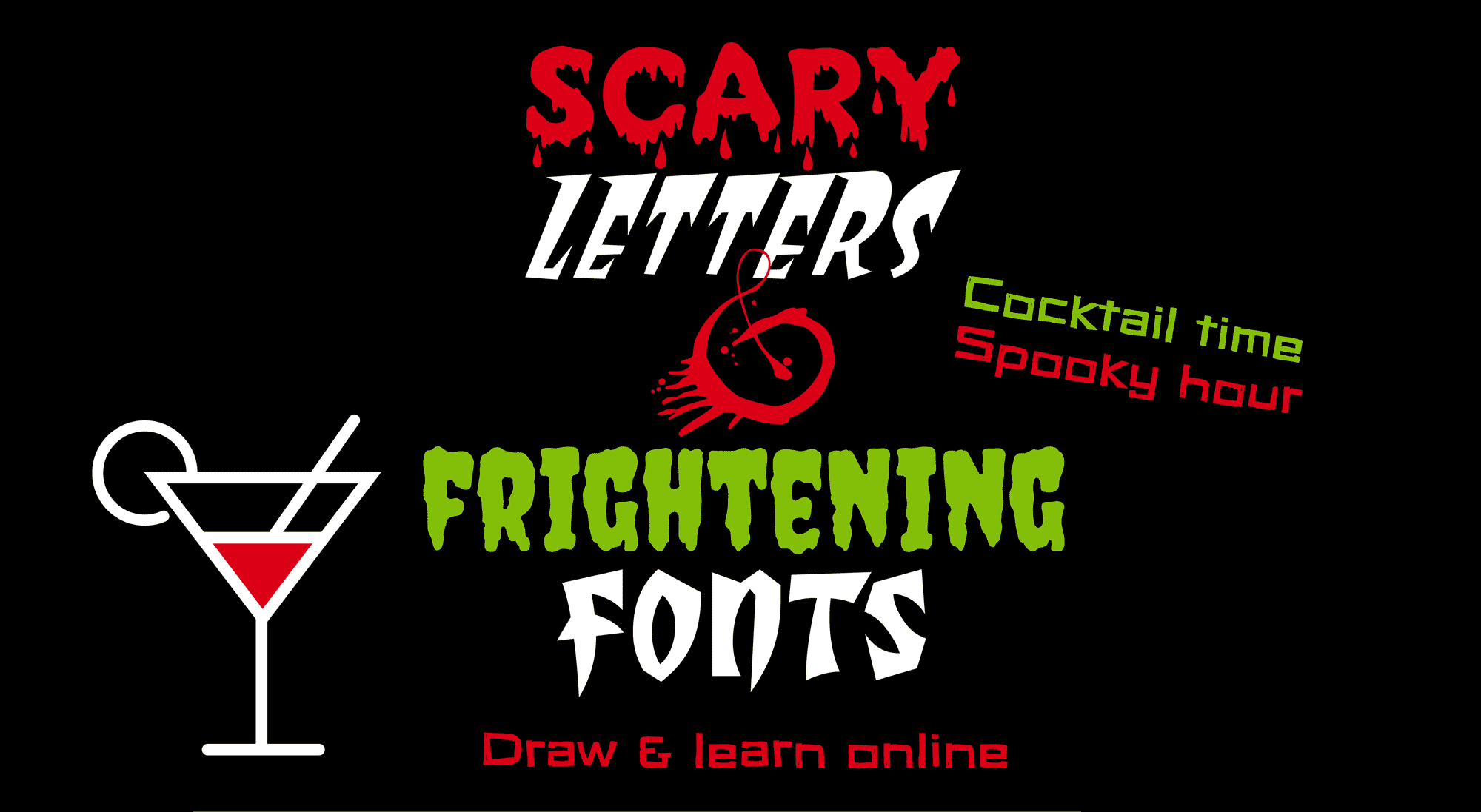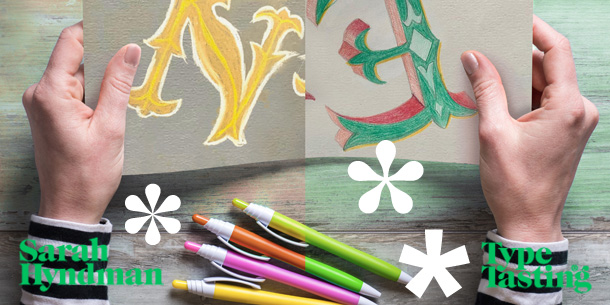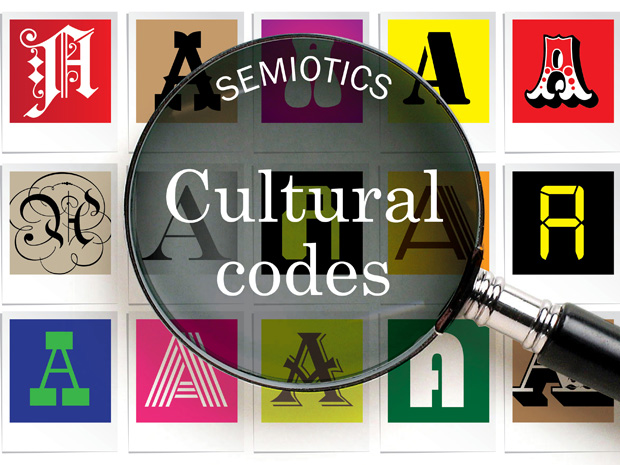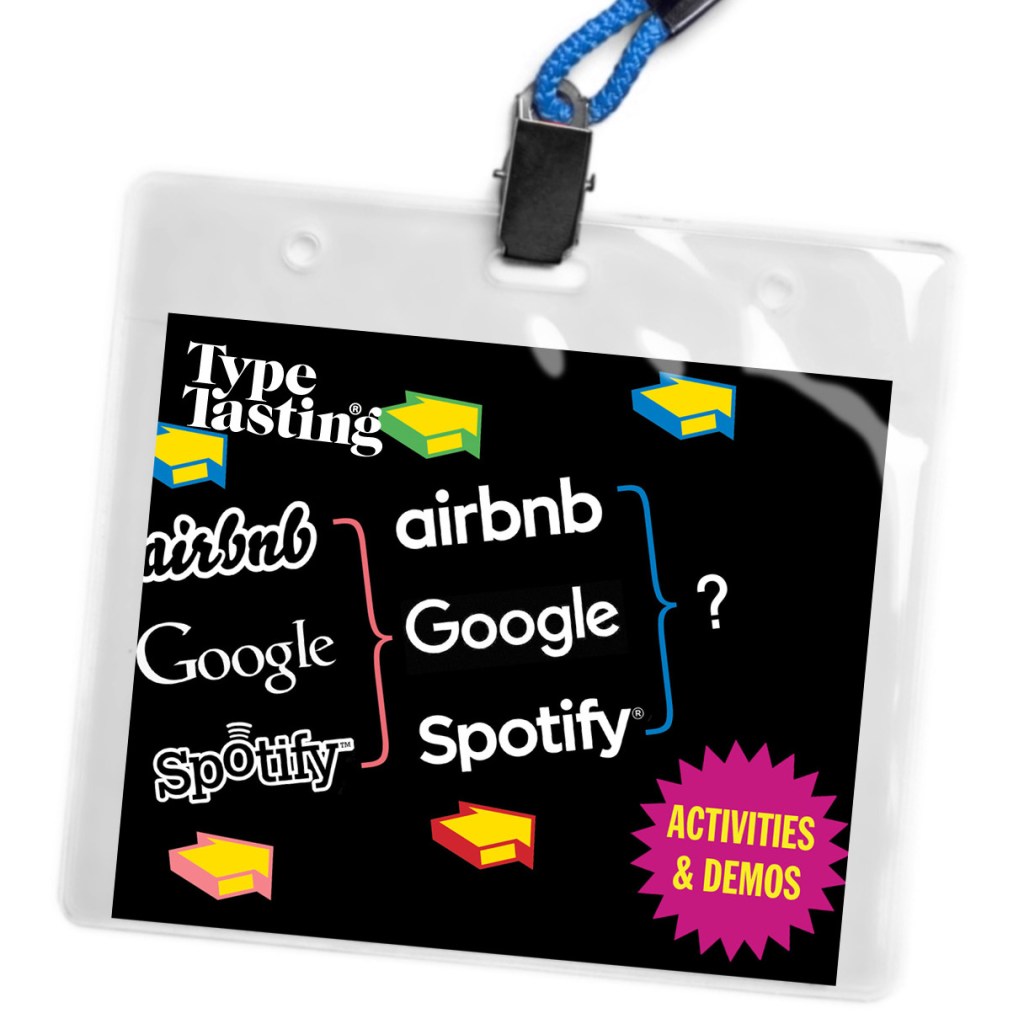
Fantastical Fonts with Sarah Hyndman: online live events
Not-to-be-missed interactive, funny and fantastical live events. Sarah’s on a mission to make typography exciting for everybody by inviting you to take part in games and demonstrations so you can make the discoveries for yourself.
Come along to this fun and irreverent online event with author Sarah Hyndman. Join in with games from her bestselling book Why Fonts Matter. She’ll answer as many of your questions as possible, no questions are too silly or too strange!
Ideal for beginners, students and anybody curious about reading fonts. We’re all font consumers in our everyday lives. Sarah will show you that you’re already an expert, even if you don’t realise it.
WHO’S THAT FONT?
Do fonts have personalities? Which would you date, ditch or just be friends with? What does a font reveal about your personality?
DO FONTS SMELL?
What might different fonts smell like and what memories do they evoke? Can a font make your jellybean taste different? How do fonts interact with all your senses?
Are you ready to immerse yourself in the fantastical world of fonts?
Typography is changing, are you ready?
Typography is changing. Two decades dominated by sans serif typefaces are coming to an end, which type designer Charles Nix describes as “the waning end of a supertrend”. Are you (and your team) ready for this new and exciting typographic landscape?
It’s an exciting time to explore how type reflects culture right now. I was delighted to run online workshops recently with the inspiring type designers at international type foundry Monotype. This was such a brilliant opportunity for all of us to compare notes as we explored the themes and trends we’ve been seeing and chatted about what we think is coming next.
I think that looking at what’s changing typographically reveals the wider cultural themes of what people care about today. After a year when so much has changed, what things really matter to you today? What do you really value and/or what no longer seems important?
Are you and your team ready for the new typographic landscape and the fast-paced changes that are happening?
How to spot and decode typography trends
You can spot the trends and themes for yourself by keeping a visual diary and by following the people who are talking about what’s happening. This is a great way to future proof your typographic skills in a time of fast-paced change that trends, foresight and strategy company The Future Laboratory call “the great acceleration”.
1. Think about what’s important to you, how might this have changed over the last year?
2. When you look at what’s happening in the world, how are cultural attitudes changing?
3. Take a look at the typographic landscape of the products and services you interact with today—can you see any styles or themes becoming prominent that you might not have seen a few years ago?
4. When you think about these in context of changing cultural attitudes, do you think there are any links?
5. Are there any companies or products that you think are doing this really well (or really badly)?
6. How can you incorporated what you’ve observed into your own design process?
Want to find out faster?
You can book a highly interactive online workshop wherever you are in the world. Your team will be prepared for this exciting new typographic landscape with the tools they need to make effective typography choices.
Decoding Type Trends (Semiotics) Masterclass
Discover how to decode the typography of everyday products. What does it reveal about changing moods and attitudes? How does it motivate your decisions? How can you future-proof your typographic choices? With a formula for making typographic choices that you can use today and into the future.